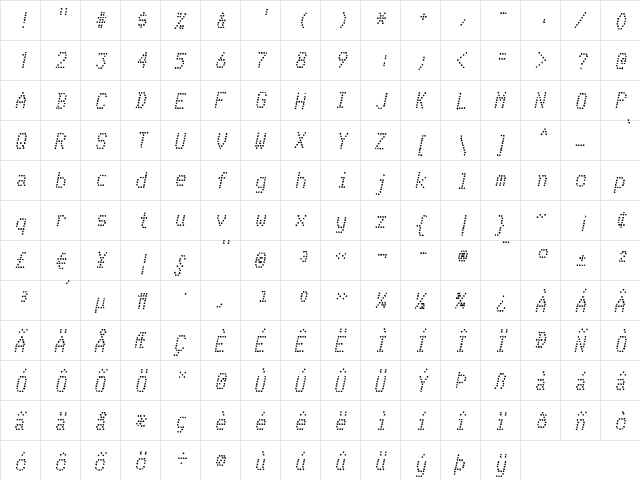
Telidon Ink Italic
Design Context for Telidon Ink Typeface
Telidon Ink is a composed and adaptable typeface that performs quietly and consistently across a wide range of design contexts. The slanted form adds forward momentum and visual energy.